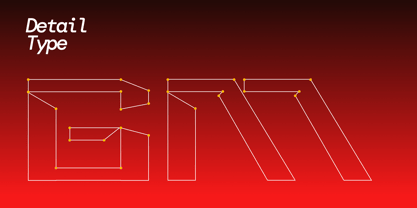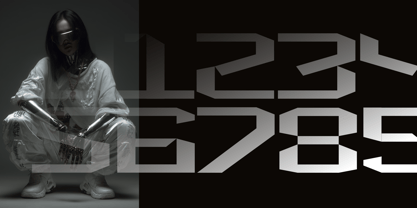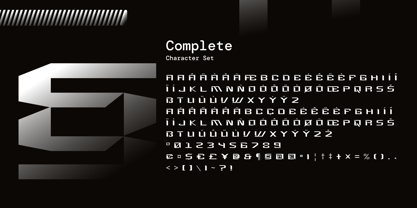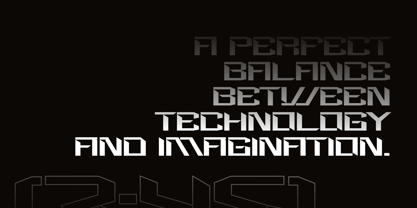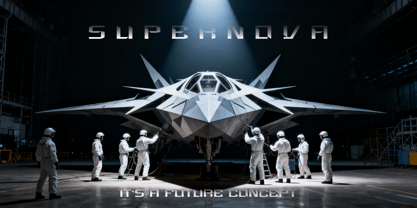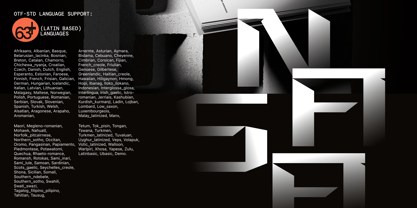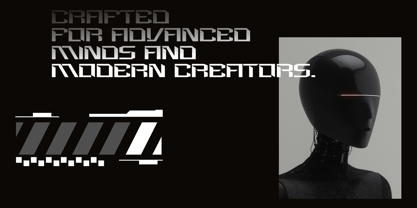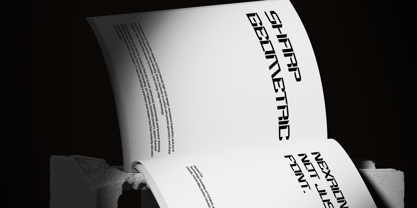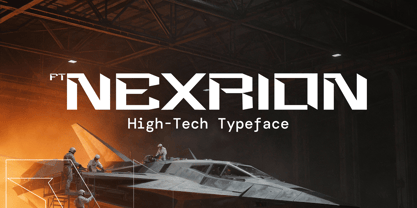
FT Nexrion
by Firstype Studio
The FT Nexrion Font Family was designed by Adrian Syauqi and published by Firstype Studio. FT Nexrion contains 2 styles and family package options. More about this family
FT Nexrion — A High-Tech Futuristic Display Typeface. FT Nexrion is a cutting-edge display typeface inspired by advanced technology, space exploration, and sci-fi aesthetics. Featuring sharp geometric forms, strong angular cuts, and a mechanical structure, this font exudes a bold and visionary presence that is both modern and forward-thinking. Its design embodies speed, precision, and innovation, making it ideal for projects that require a powerful futuristic identity. FT Nexrion is crafted to infuse a next-generation atmosphere into branding, gaming titles, movie posters, sci-fi visuals, technology products, motion graphics, and experimental typography. Each character showcases a strong space-tech personality: solid, sharp, and commanding. The font seamlessly blends cyber-inspired visuals with a premium, high-impact look, resulting in typography that is advanced, dynamic, and visually striking. Perfect for creating an engaging and memorable impression in any futuristic design context.